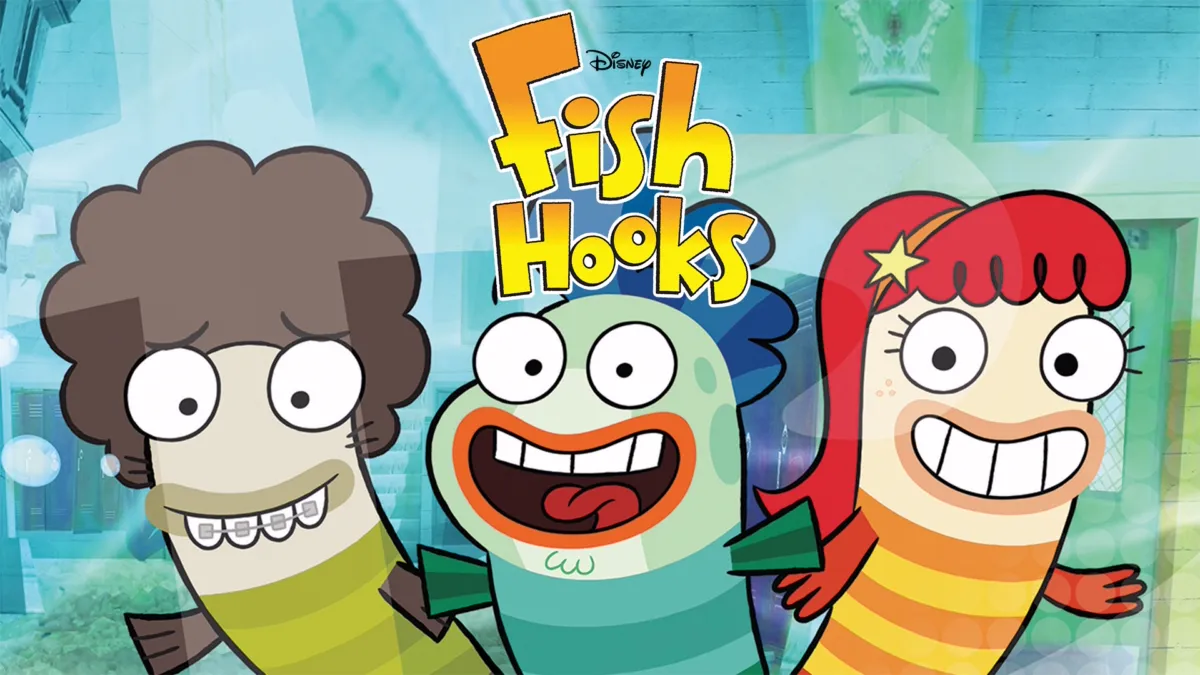
Fish Hooks (2010 2014) Fish Hooks Disney Font Fish hooks was an american animated television series created by noah z. Jones that premiered on september 24, 2010. The series revolved around three fish friends: Click to find the best 2 free fonts in the fish hooks style. Generate every disney design here, for free. Fish hook font is mainly used in cartoons because of its groovy look. Edited. Fish Hooks Disney Font.
Printable Fish Hook Font vrogue.co Fish Hooks Disney Font Fish hooks was an american animated television series created by noah z. The fish hooks font has been downloaded 3,336 times. We have fonts for frozen, mickey mouse, disney movies, and even walt's signature font! Download more than 50 free disney fonts that are available for your disney diy projects and crafts. I don't find anyone who needs this font,. Fish Hooks Disney Font.
"Fish Hooks Vita da pesci" sbarca su Disney Channel! CineZapping Fish Hooks Disney Font We have fonts for frozen, mickey mouse, disney movies, and even walt's signature font! Generate every disney design here, for free. Jun 26, 2017 at 05:30. Looking for fish hooks fonts? It attracts kids because of its appearance. Edited on jun 26, 2017 at 05:50 by pooptv. The fish hooks font has been downloaded 3,336 times. Download and install the. Fish Hooks Disney Font.
Fish Hook Font Fisher Font TTF Fish Hooking Font Installable Font Hook Fish Hooks Disney Font Includes walt disney font, mickey mouse font, frozen font, moana font, jungle cruise font and star wars font. The fish hooks font has been downloaded 3,336 times. Edited on jun 26, 2017 at 05:50 by pooptv. It attracts kids because of its appearance. Download and install the fish hooks font by manfred klein. Download more than 50 free disney fonts. Fish Hooks Disney Font.